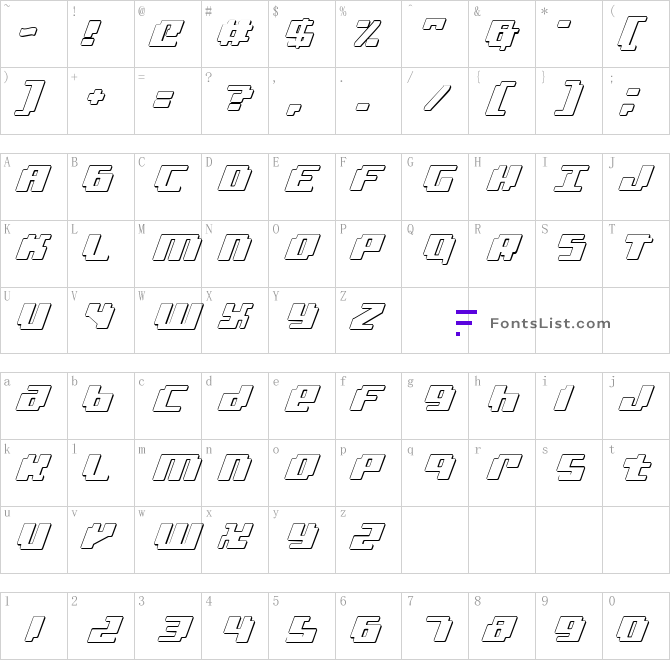
- Font Name:bad robot 3d italic
bad-robot-3d-italic.ttf is a very beautiful artistic font, bad-robot-3d-italic.ttf is widely used in the design and printing of various books and pictures,bad-robot-3d-italic.ttf has a strong visual impact,bad-robot-3d-italic.ttf is a commonly used font in newspapers, magazines and books, and is used in posters, e-commerce Poster design, store design, logo design, font design and other fields.bad-robot-3d-italic.